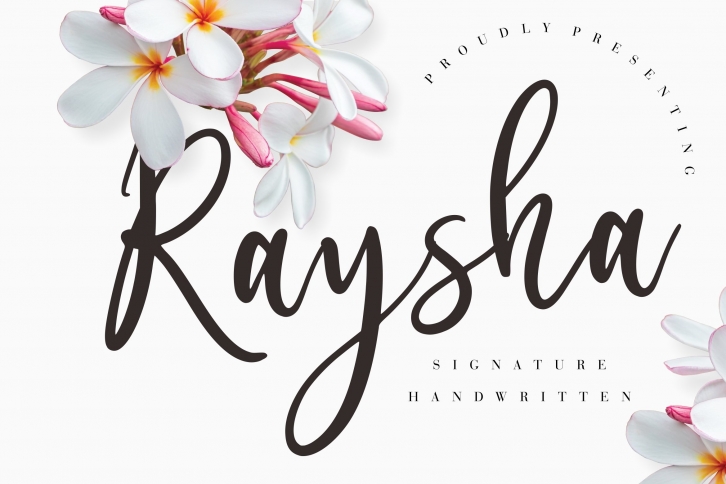
Raysha Signature Handwritten is a trendy and unique font with an authentic style. It was designed by Creatype Studio and it's a great choice for creative people who need such a font. It was released on June 15, 2020 and the file size is 8.78 MB. Raysha Signature Handwritten will add an organic vibe to any design idea!